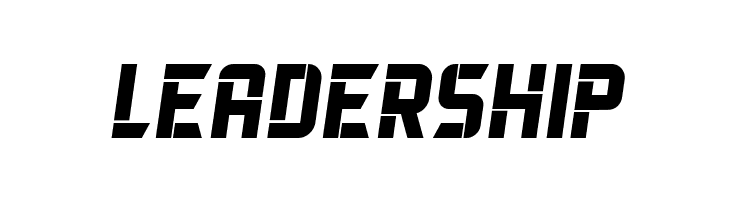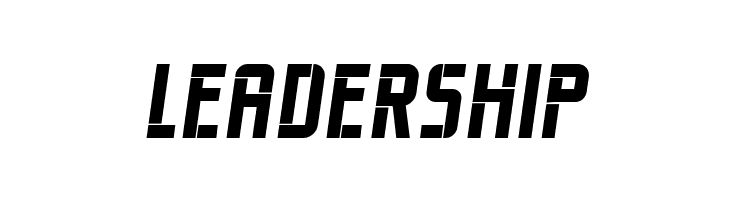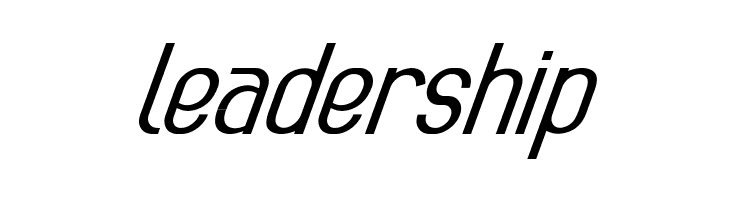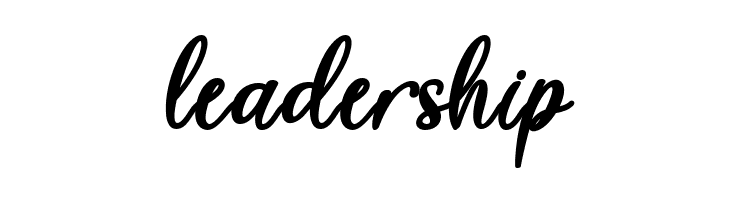
An italicized font with a shadow effect, offering a dynamic and artistic style.
A modern italic font with smooth strokes and moderate contrast, exuding elegance and fluidity.
A bold, 3D, expanded italic font with a futuristic and dynamic design.
A bold, 3D italic font with a futuristic and geometric design.
A bold, condensed, and italic font with a futuristic double-line design.
A futuristic, expanded italic font with bold geometric shapes and a sci-fi aesthetic.
A bold, futuristic font with geometric shapes and a three-dimensional effect.
A bold, condensed, and italicized font with a futuristic and dynamic design.
A futuristic, condensed, and left-italic font with a bold, geometric design.
A bold, expanded, and italicized font with a futuristic, angular design.
A futuristic, expanded, and italicized font with a geometric and stencil-like design.
A futuristic, angular font with italicized, sharp-edged characters.
A bold, futuristic font with geometric, angular characters.
A lively, cursive font with a playful and elegant handwritten style.
A modern, italicized font with medium contrast and a sleek, professional look.
A bold, extended italic font with a futuristic and dynamic style.
A bold, italic font with a modern, angular design and strong visual impact.
A modern, rounded italic font with a friendly and approachable style.
A bold, rounded, and italic font with a modern and approachable style.